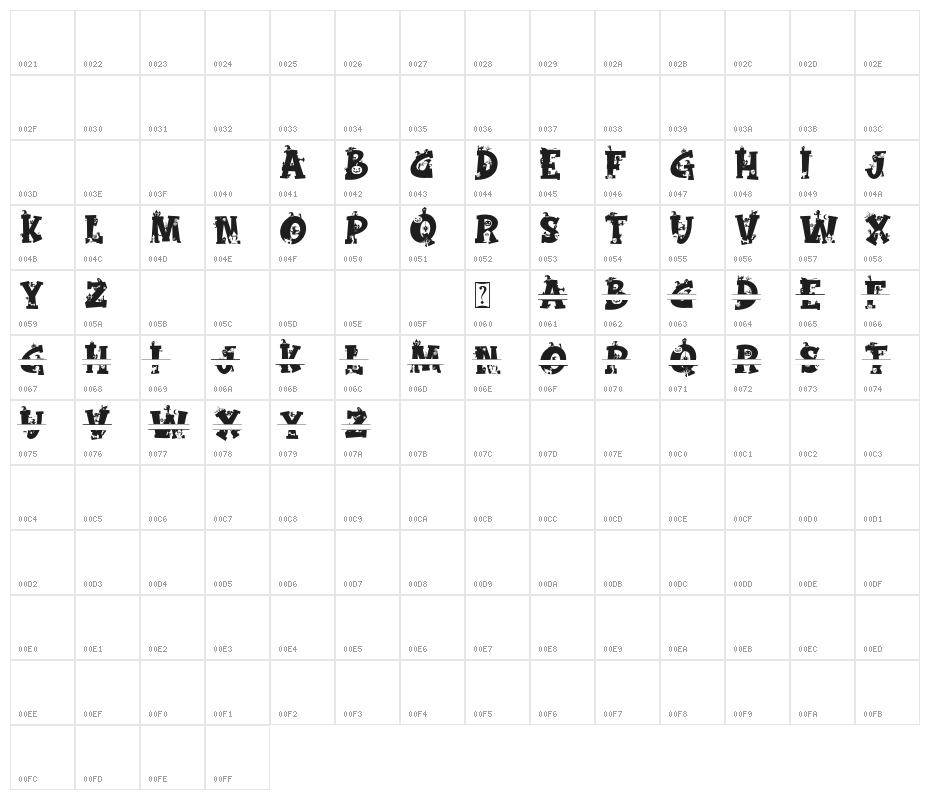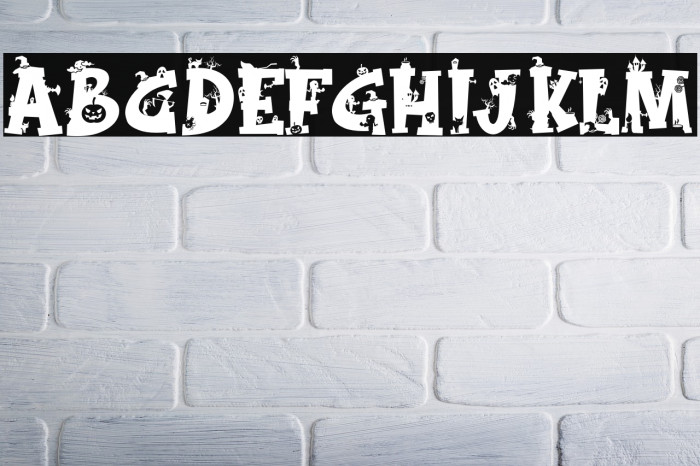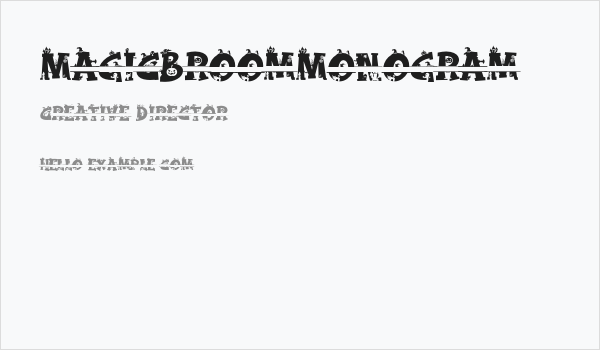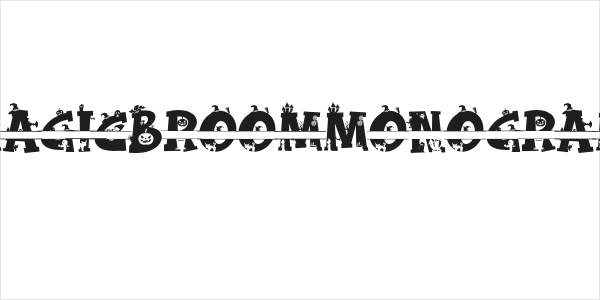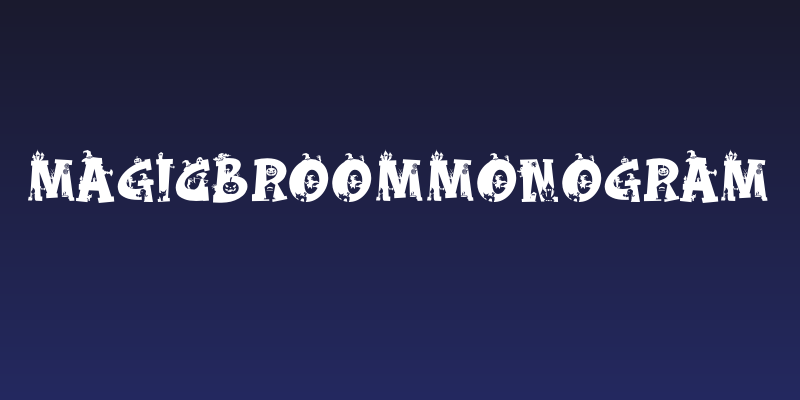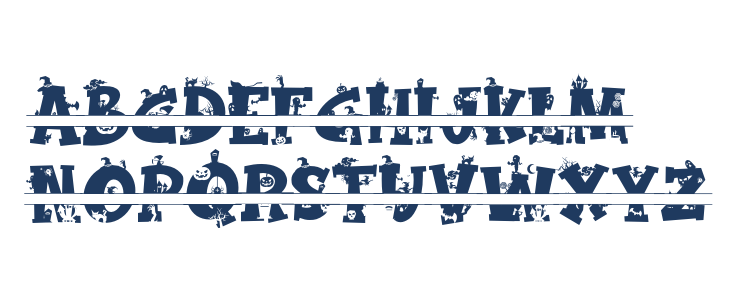
MagicBroomMonogram Font
MagicBroomMonogram Description
This whimsical and decorative font features playful elements integrated into each letter, such as witches, brooms, and pumpkins, creating a Halloween-themed aesthetic. The bold, blocky letters are adorned with intricate details that make each character unique and eye-catching. The font's design is highly thematic, making it ideal for festive and creative projects. Its distinct style captures a sense of fun and mystery, perfect for adding a spooky touch to any design.
| Proposed Projects | Ideal for Halloween invitations, themed party decorations, posters, and creative branding projects. |